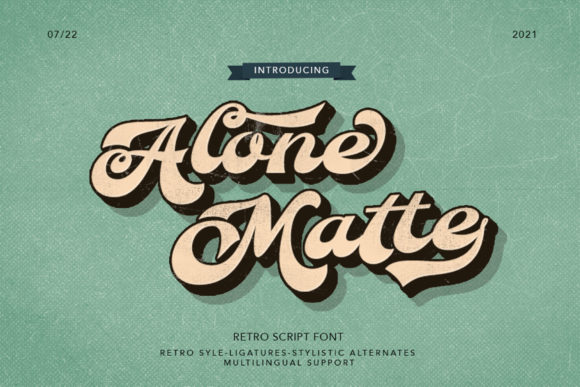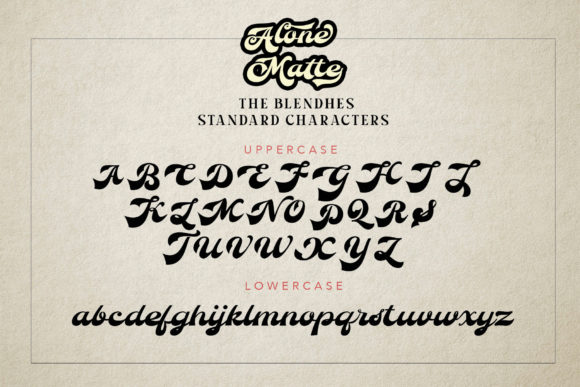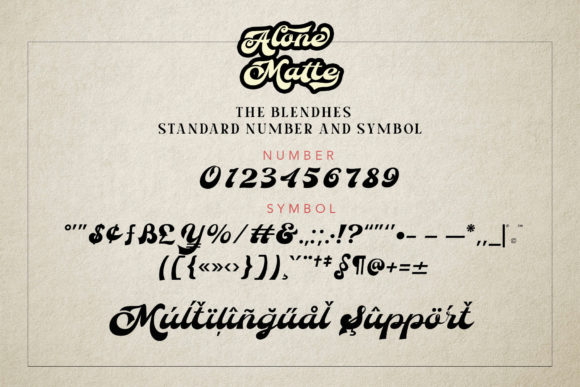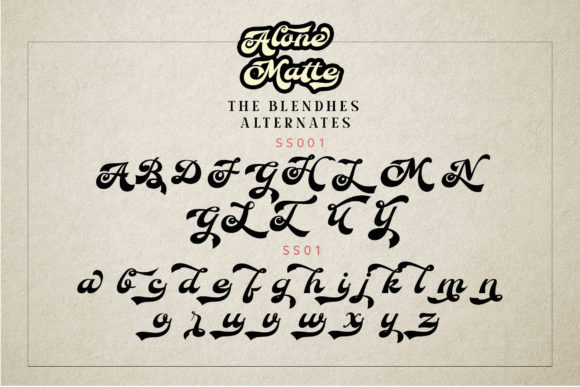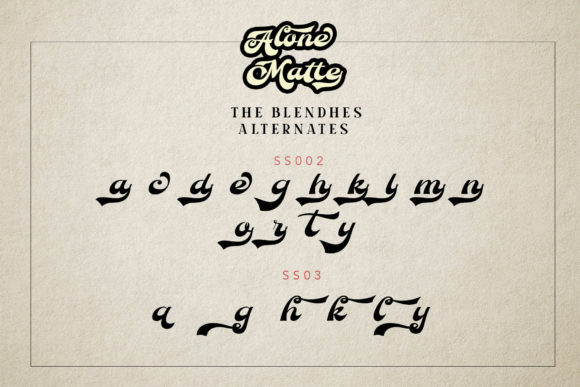
About Alone Mate Font
Alone Mate is a gorgeous and bold handwritten font, crafted to give your headlines and logotype projects a stylish touch. This font reads as strong, confident, and dynamic and can add tons of nostalgic character to your designs. Alone Mate is PUA encoded which means you can access all of the beautiful glyphs and swashes with ease!